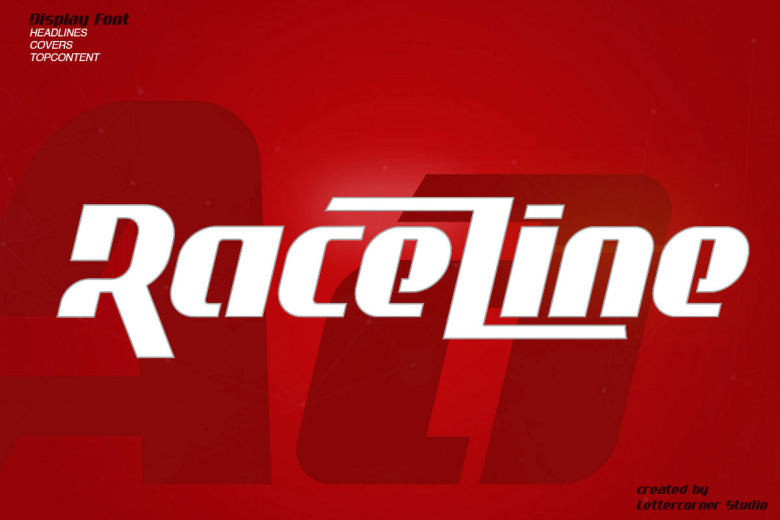
Raceline Display Font is a creative and contemporary display typeface made by the hand of lettering artist and lovingly put together by me by Muhammad Afif Ersya. It contains uppercase, lowercase, number, symbol and support multilingual. Raceline font is ideal for sports headline of speed car race, branding projects, advertisements, product packaging, product designs, label, photography, watermark, invitation, stationery, logo and monogram of automotive game or other modern dynamic text. headline of speed car race, logo and monogram of automotive game or other modern dynamic text.
Raceline Display Font